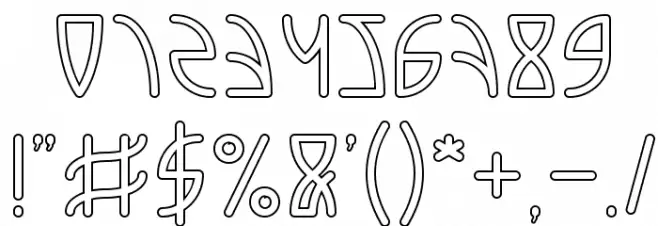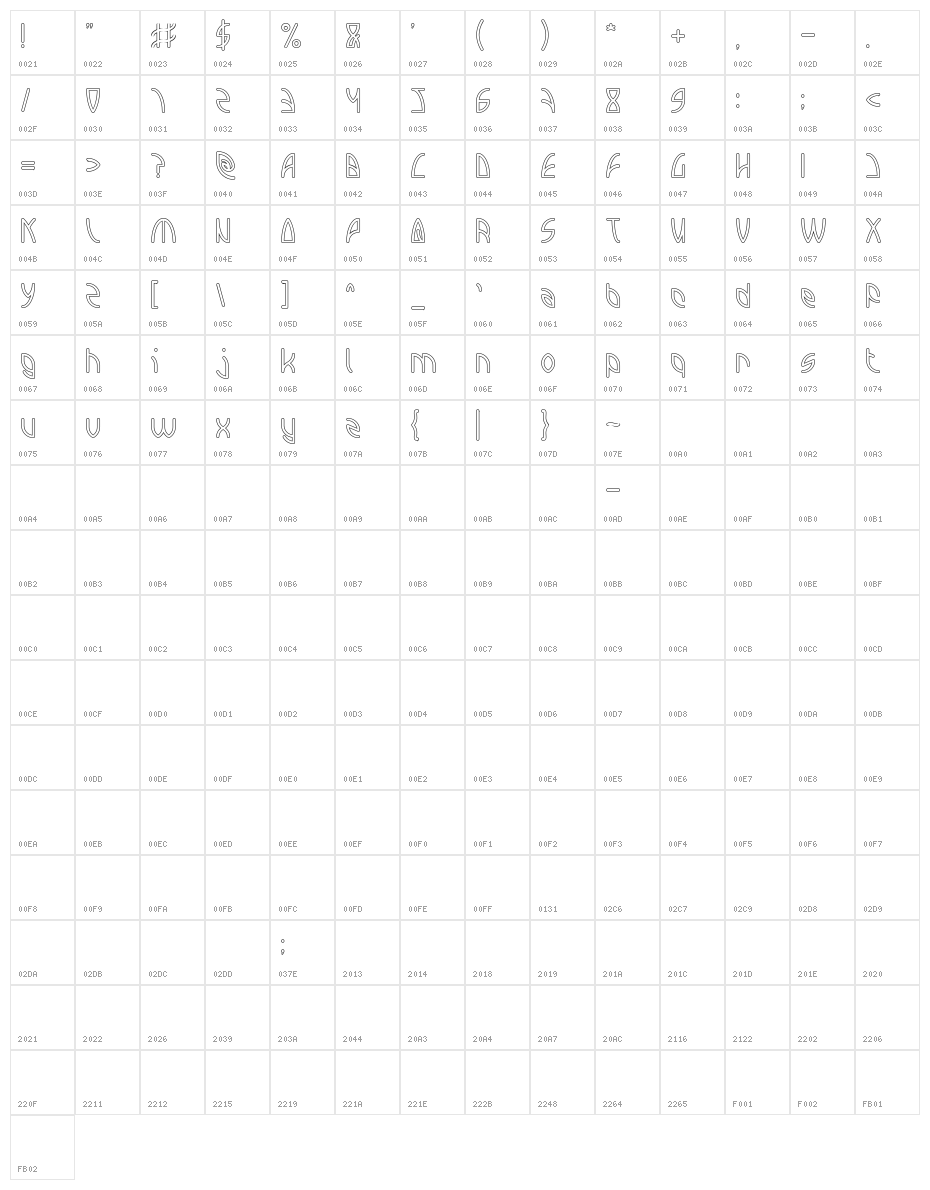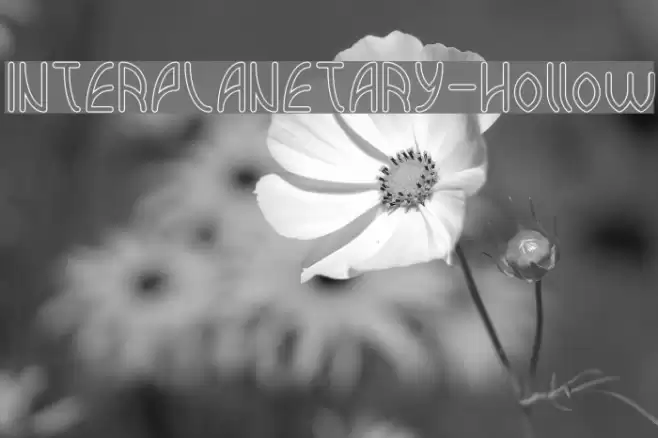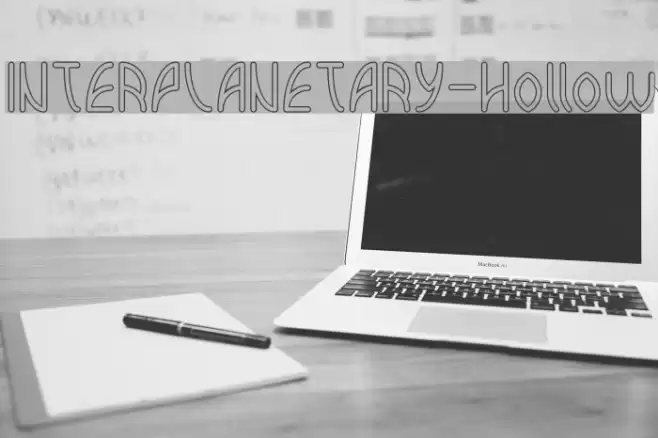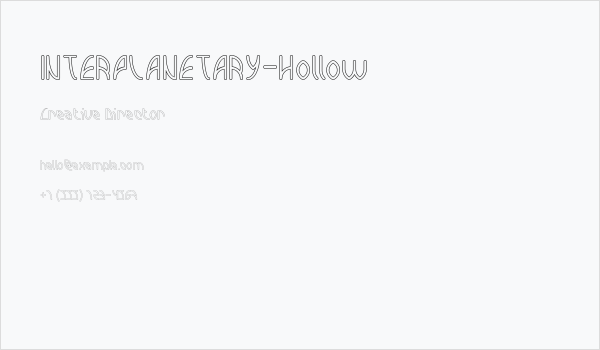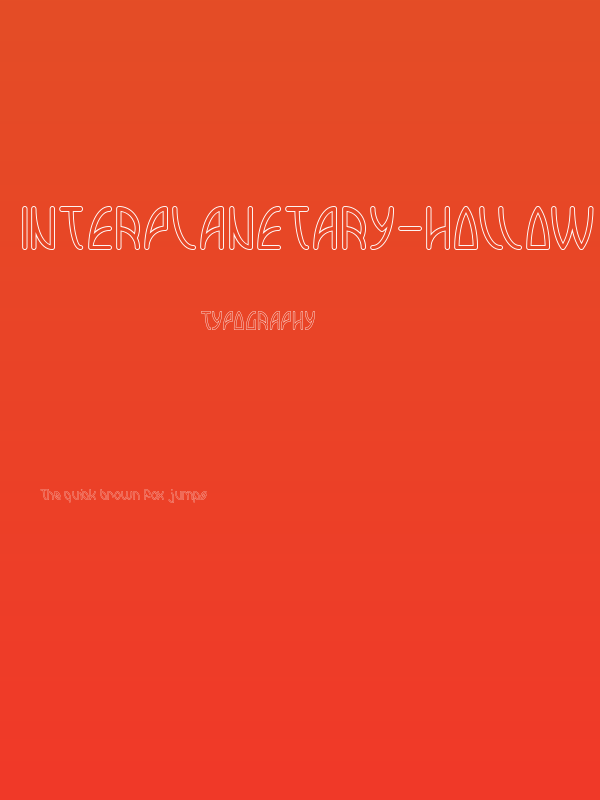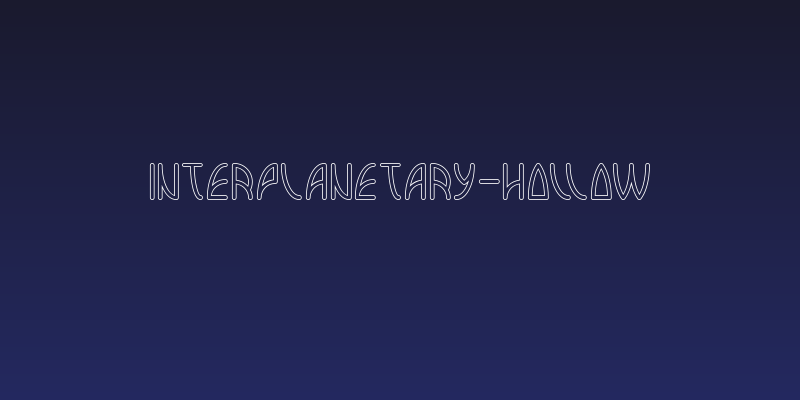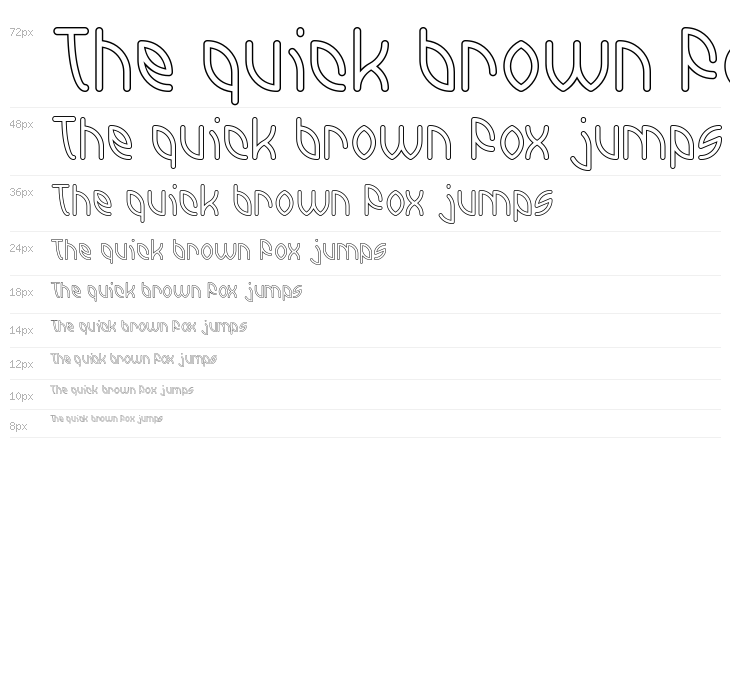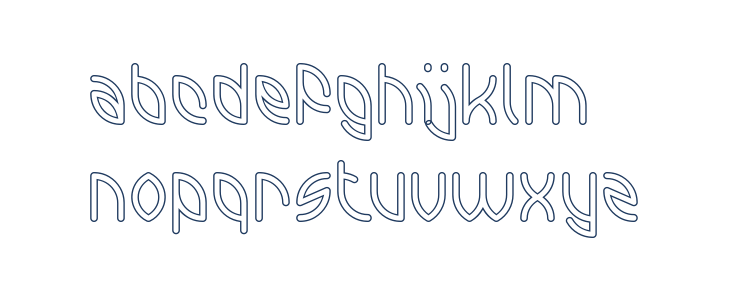
INTERPLANETARY-Hollow Font
INTERPLANETARY-Hollow Description
This font features a futuristic and geometric design with hollow, outlined characters that give it a unique and airy appearance. The uppercase and lowercase letters maintain a consistent style, with rounded edges and a uniform thickness throughout. The numbers and special characters follow the same design principles, ensuring a cohesive look across all elements. The font's open structure and clean lines make it highly legible, while its distinct style adds a modern and innovative touch to any project.
| Proposed Projects | Ideal for sci-fi themed designs, technology branding, modern posters, and digital media projects. |